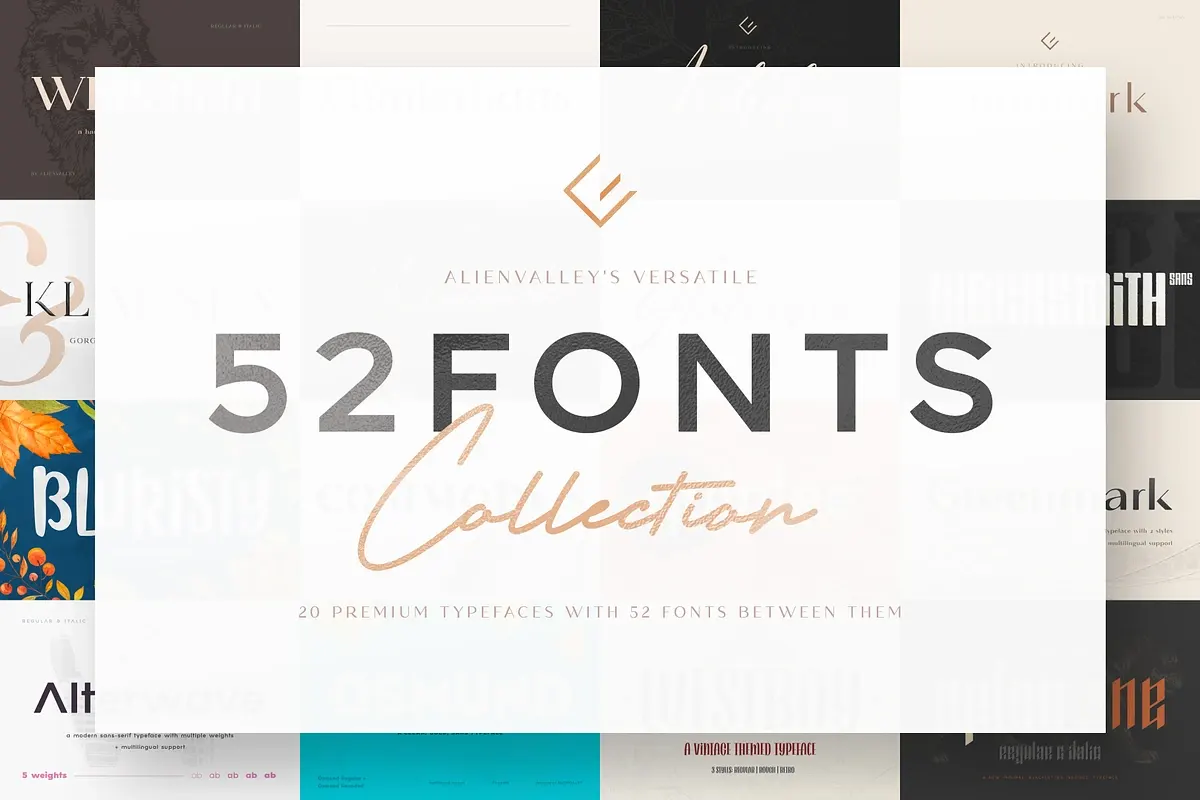
The Versatile Font Bundle Free Download
The Versatile Font Bundle Free Download is an expansive collection of high-quality fonts designed to suit a wide variety of design needs. This bundle includes a mix of modern sans-serifs, elegant scripts, and bold display fonts, giving you endless options for logos, branding, social media content, websites, invitations, and more. Whether you're working on a corporate brand, a creative project, or a personal design, The Versatile Font Bundle Free Download offers a perfect solution for every occasion. Experiment with these fonts in personal projects before purchasing a commercial license and elevate your designs with this beautifully crafted, diverse font bundle.